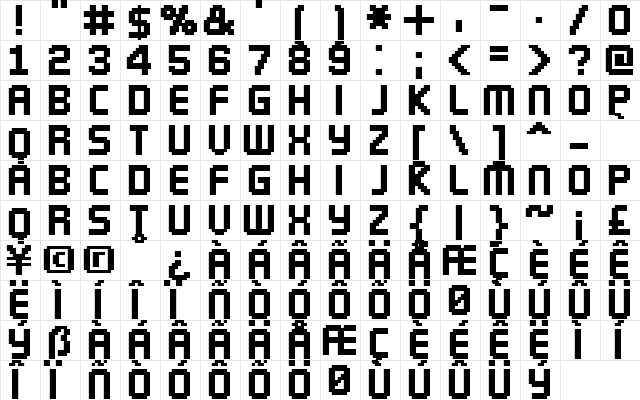
FFF Silver Regular
Design Context for FFF Silver Typeface
FFF Silver is a composed and adaptable typeface that performs quietly and consistently across a wide range of design contexts.